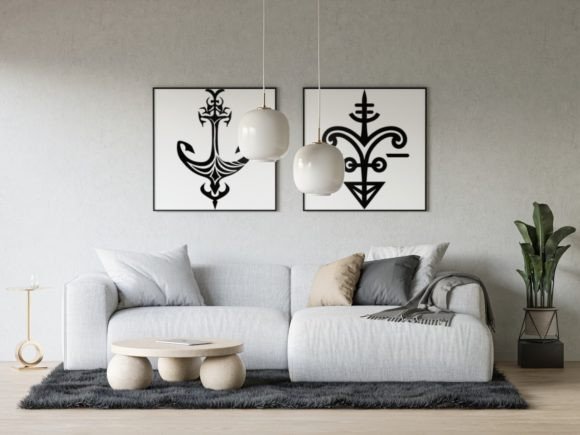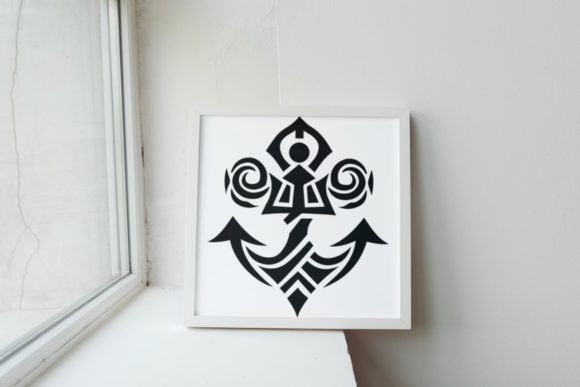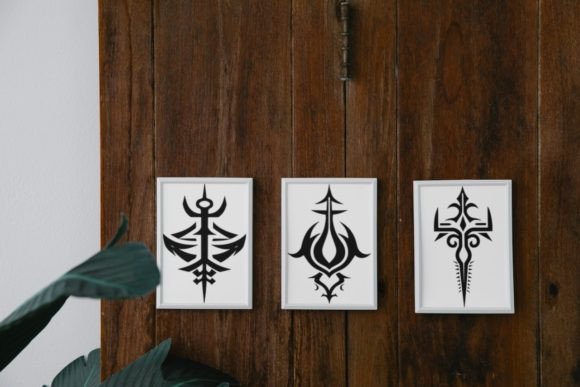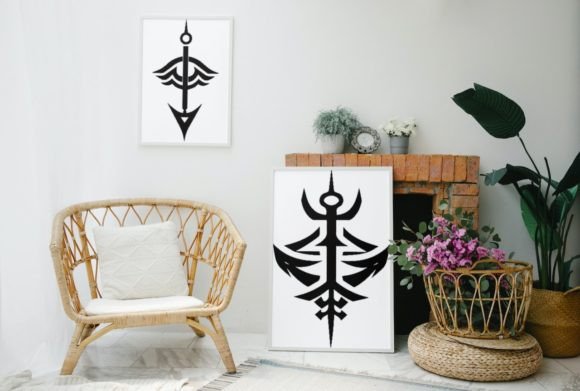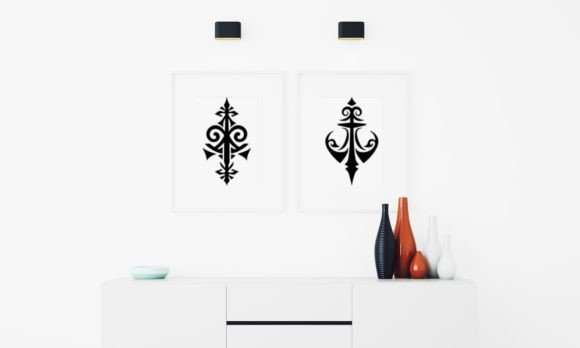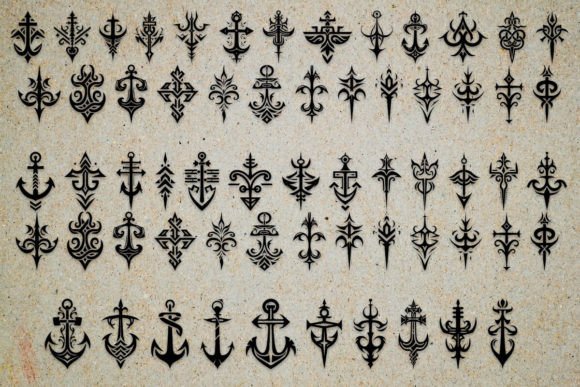
Discover Joy with Anchor of Happiness Dingbats Fonts! Elevate your designs with positivity.
Are you a designer or crafter looking for a way to add a touch of happiness to your creations? Look no further than the Anchor of Happiness Dingbats Fonts! This delightful font is designed to bring a smile to your face and a sense of positivity to your designs. In this article, we’ll explore the world of Anchor of Happiness Dingbats Fonts and show you how to elevate your designs with joy.
What is Anchor of Happiness Dingbats Fonts?
Anchor of Happiness Dingbats Fonts is a unique and charming font that features a collection of delightful dingbats, or graphic symbols, designed to evoke feelings of happiness and positivity. The font is perfect for designers and crafters who want to add a touch of whimsy and fun to their creations. With Anchor of Happiness Dingbats Fonts, you can create beautiful designs that are sure to bring a smile to anyone’s face.
The Benefits of Using Anchor of Happiness Dingbats Fonts
So, why should you choose Anchor of Happiness Dingbats Fonts for your designs? Here are just a few benefits of using this delightful font:
- Add a touch of happiness to your designs: With Anchor of Happiness Dingbats Fonts, you can add a dash of joy and positivity to your creations. Whether you’re designing a greeting card, a poster, or a social media graphic, this font is sure to bring a smile to your face and yours to others.
- Perfect for crafters and designers: Anchor of Happiness Dingbats Fonts is ideal for crafters and designers who want to create unique and eye-catching designs. The font is versatile and can be used for a wide range of projects, from paper crafting to digital design.
- Easily customizable: With Anchor of Happiness Dingbats Fonts, you can easily customize your designs to fit your style and brand. The font is compatible with most design software, making it easy to resize, recolor, and re arrange to your heart’s content.
How to Use Anchor of Happiness Dingbats Fonts in Your Designs
Using Anchor of Happiness Dingbats Fonts in your designs is easy! Here are a few tips to get you started:
- Pair with complementary fonts: Anchor of Happiness Dingbats Fonts looks great when paired with complementary fonts, such as script fonts or bold sans-serif fonts. Experiment with different font combinations to find the perfect look for your design.
- Use in combination with other design elements: Anchor of Happiness Dingbats Fonts can be used in combination with other design elements, such as images, textures, and patterns. Experiment with different design elements to create a unique and eye-catching design.
- Experiment with color: Anchor of Happiness Dingbats Fonts looks great in a variety of colors. Experiment with different color schemes to find the perfect look for your design.
Inspiration for Your Designs
Need some inspiration for your designs? Here are a few ideas to get you started:
- Greeting cards: Anchor of Happiness Dingbats Fonts is perfect for creating happy and uplifting greeting cards. Use the font to create beautiful and eye-catching designs for birthdays, holidays, and other special occasions.
- Social media graphics: Use Anchor of Happiness Dingbats Fonts to create eye-catching social media graphics that are sure to bring a smile to your followers’ faces.
- Paper crafting: Anchor of Happiness Dingbats Fonts is perfect for paper crafting projects, such as scrapbooking and card making. Use the font to create beautiful and unique designs that are sure to impress.
In conclusion, Anchor of Happiness Dingbats Fonts is a delightful font that is sure to bring joy and positivity to your designs. With its unique and charming dingbats, this font is perfect for designers and crafters who want to add a touch of whimsy and fun to their creations. Whether you’re designing a greeting card, a poster, or a social media graphic, Anchor of Happiness Dingbats Fonts is the perfect choice. So why wait? Download Anchor of Happiness Dingbats Fonts today and start creating beautiful designs that are sure to bring a smile to anyone’s face!